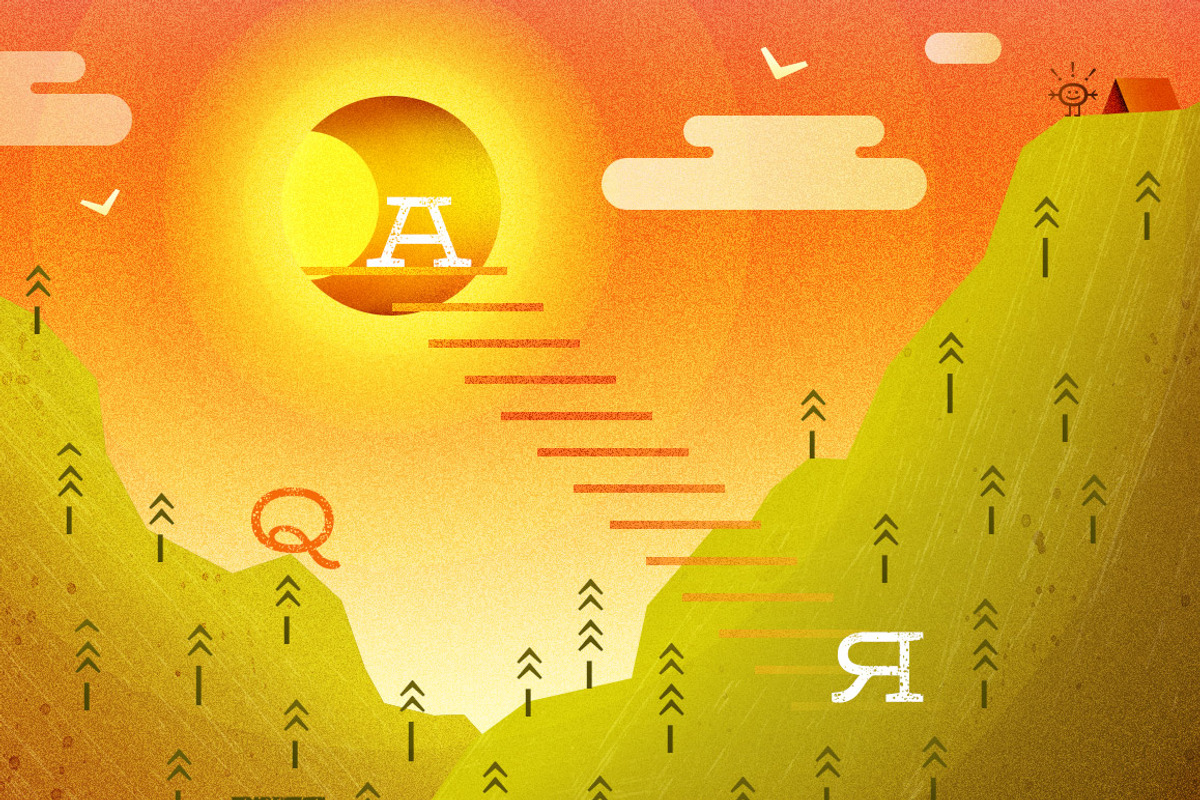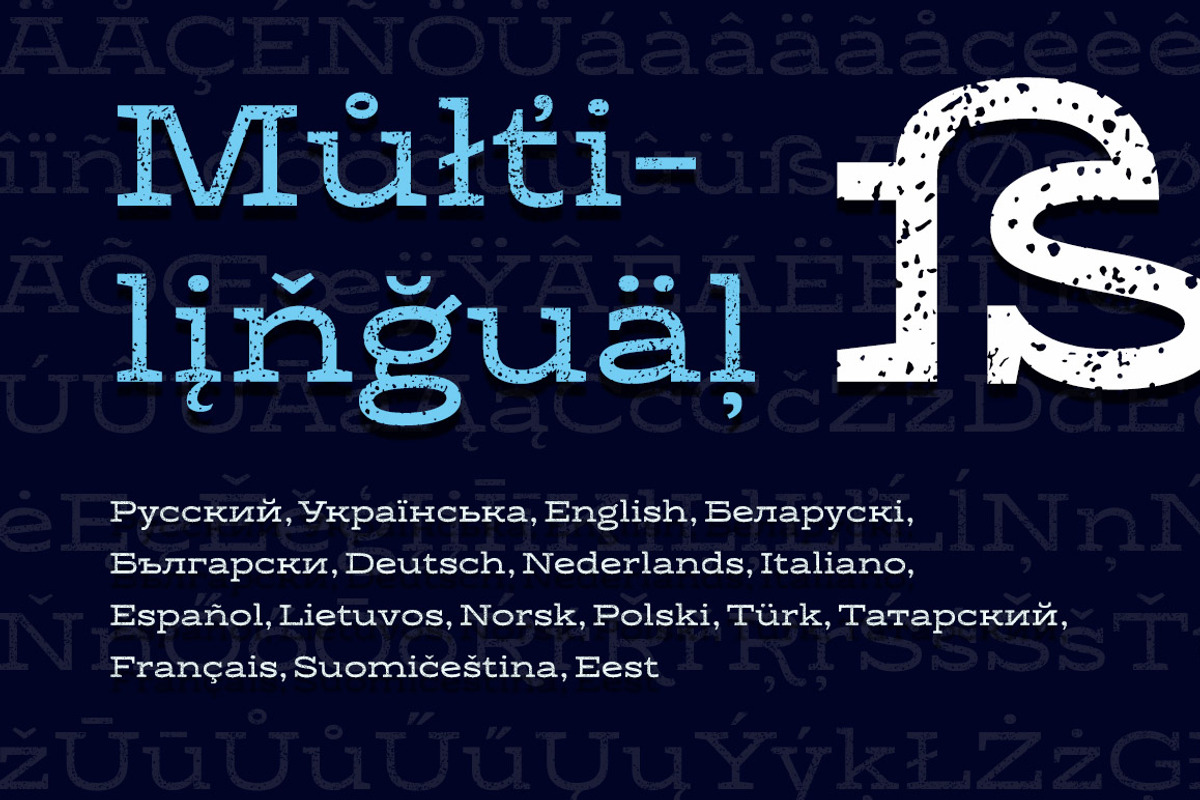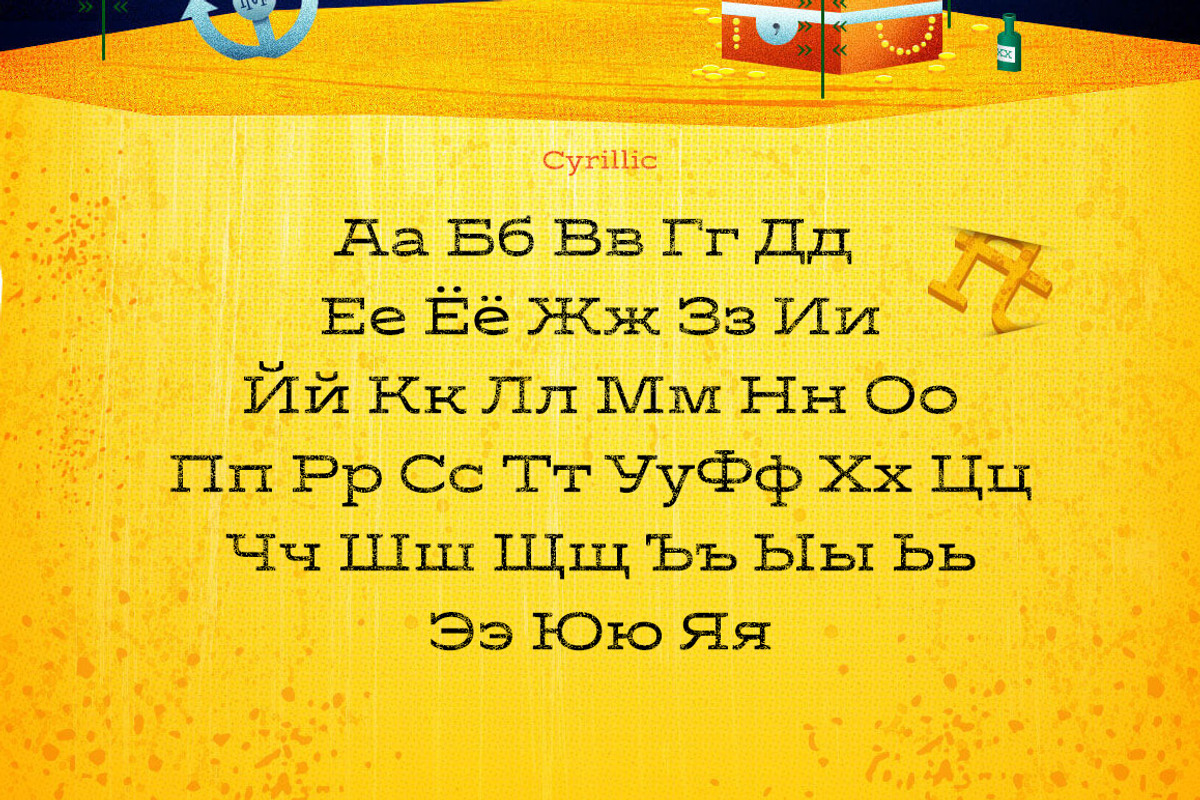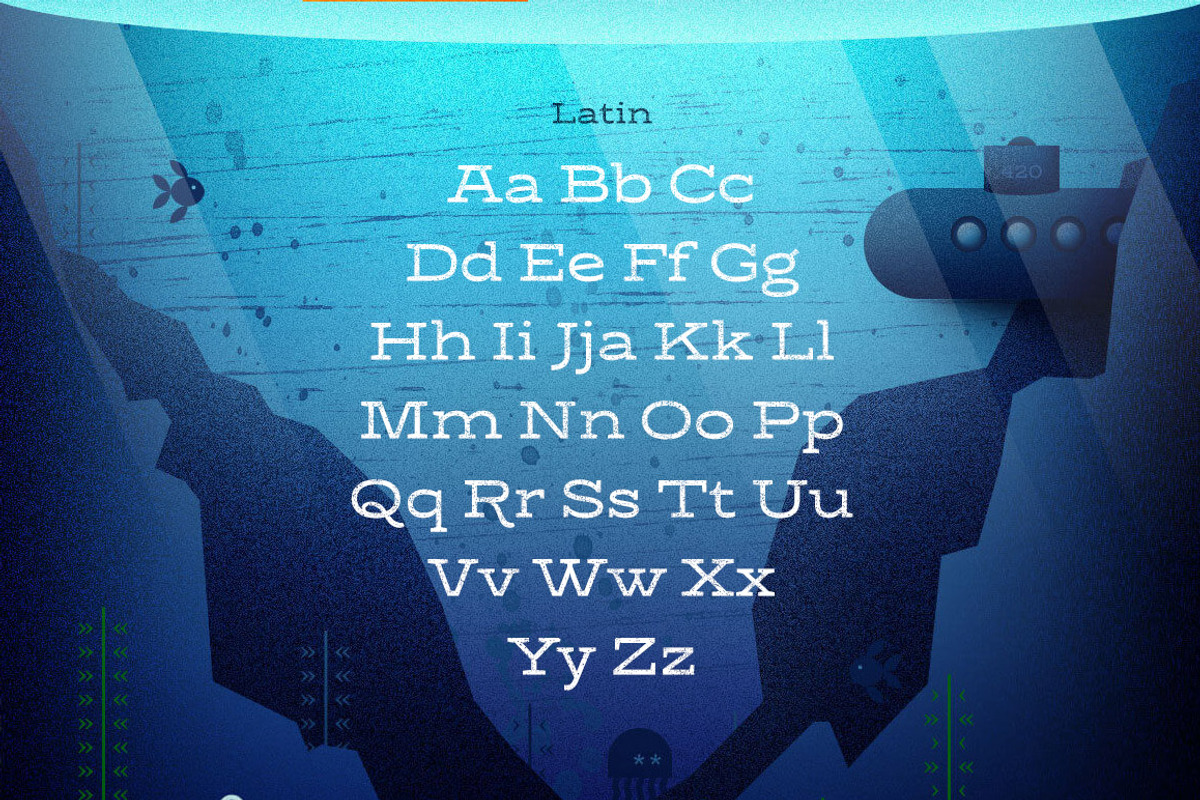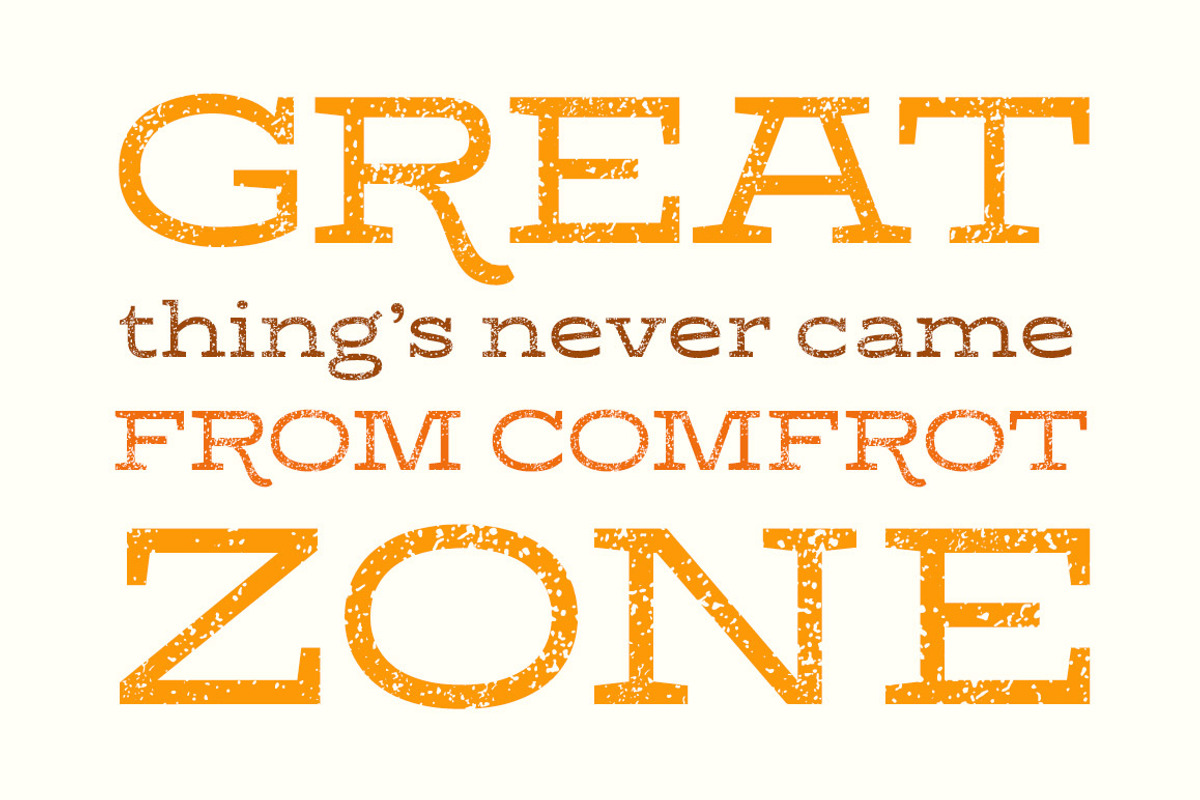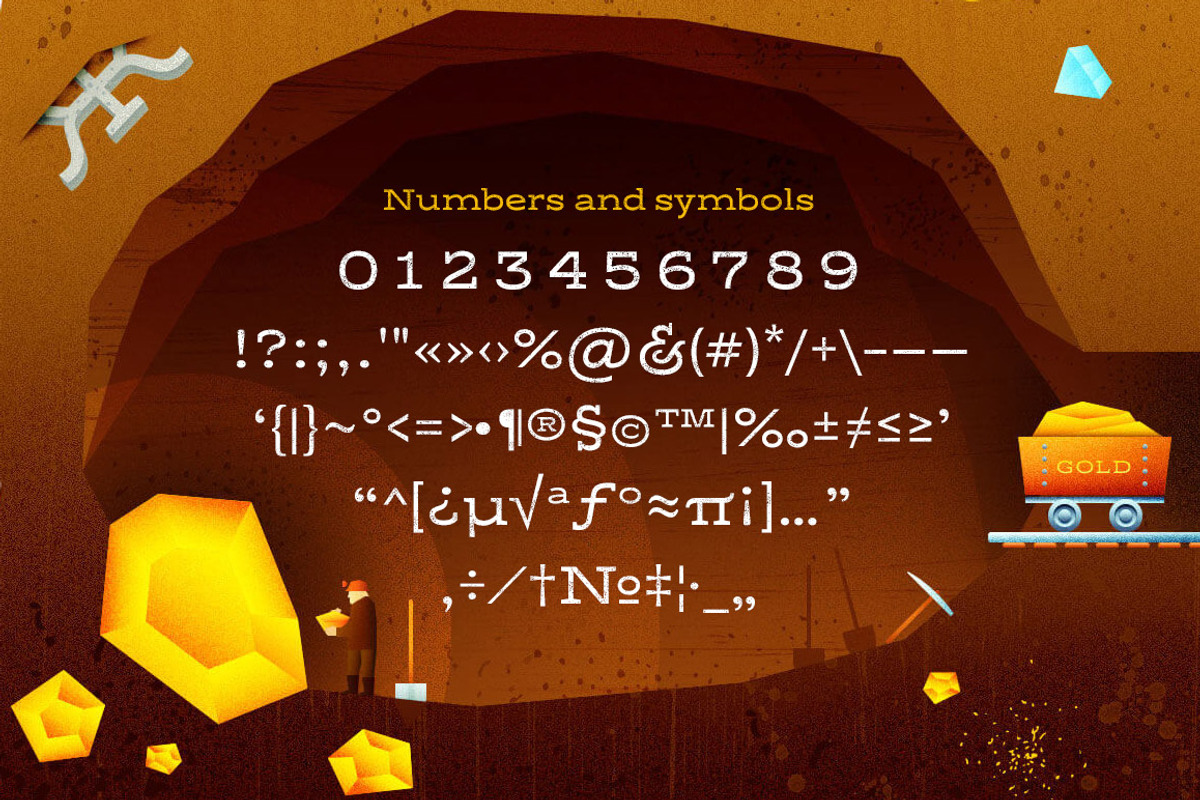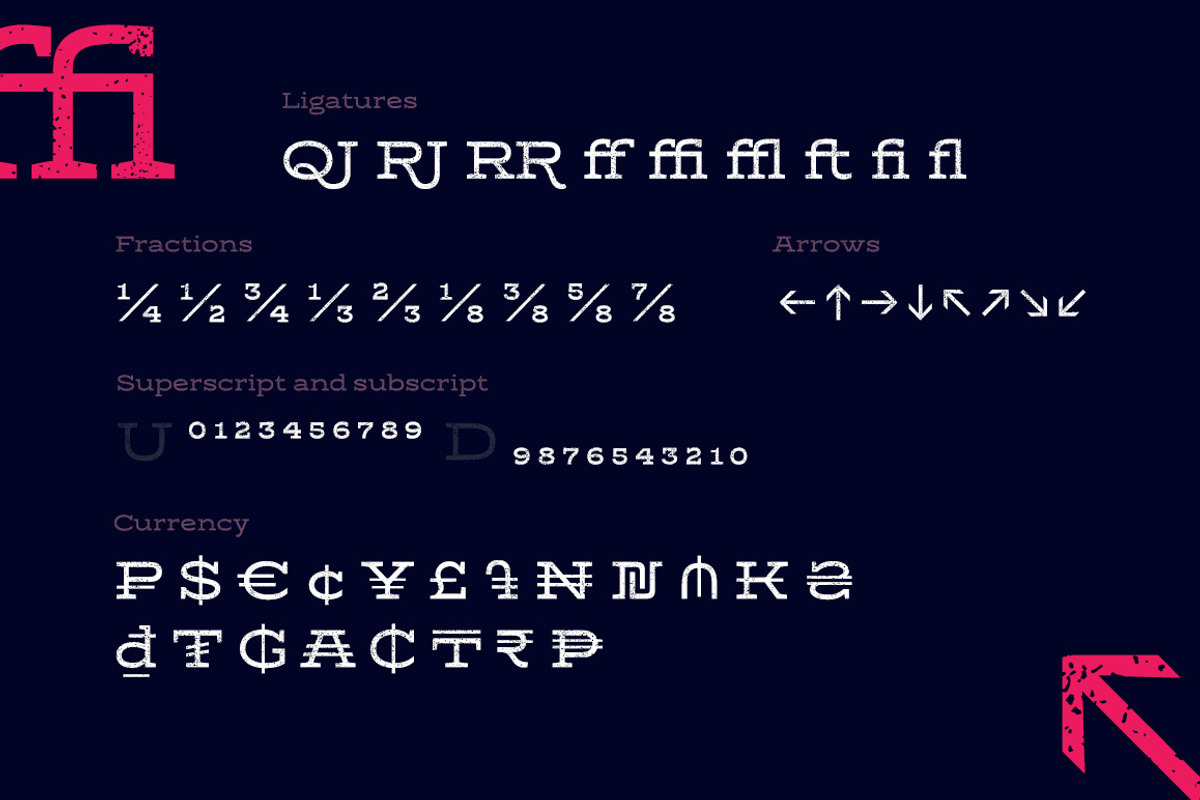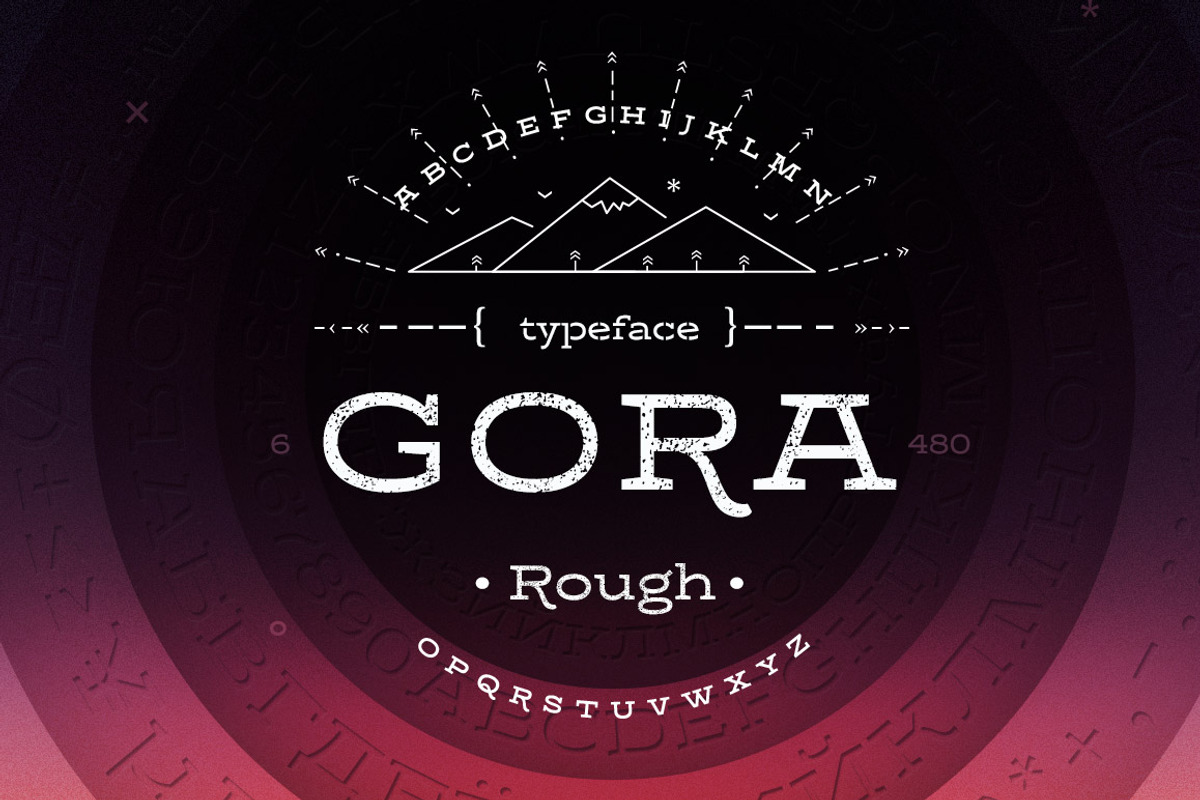
Gora Rough
Gora Rough by Russian Fonts is a font selected for branding, posters, packaging, typography.
- «Gora» includes many features: ligatures, fractions, numbers, subscript and superscript numbers, arrows, and currency symbols.
Why Gora Rough is worth a look
Gora Rough by Russian Fonts fits naturally into Branding, posters, packaging, typography.